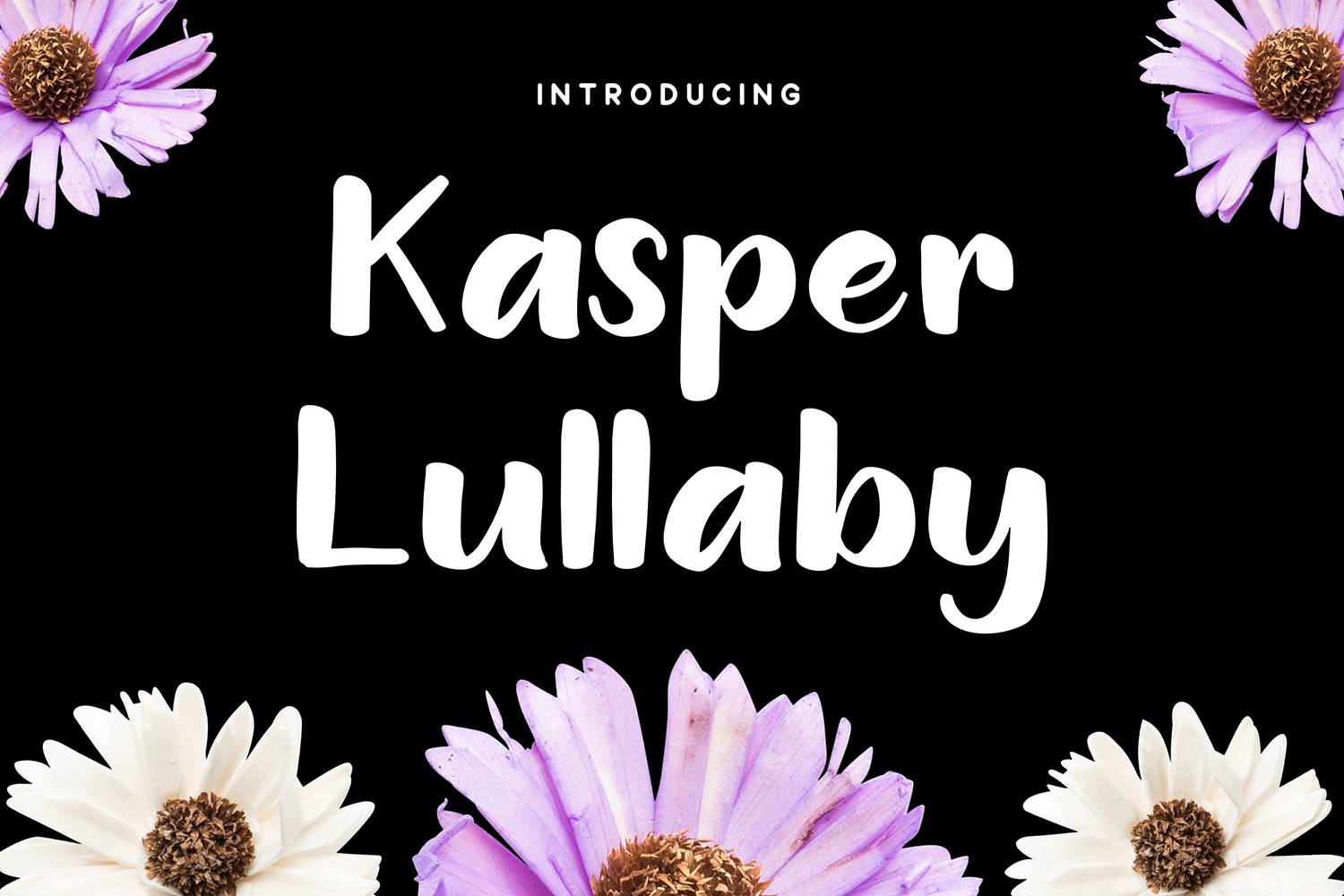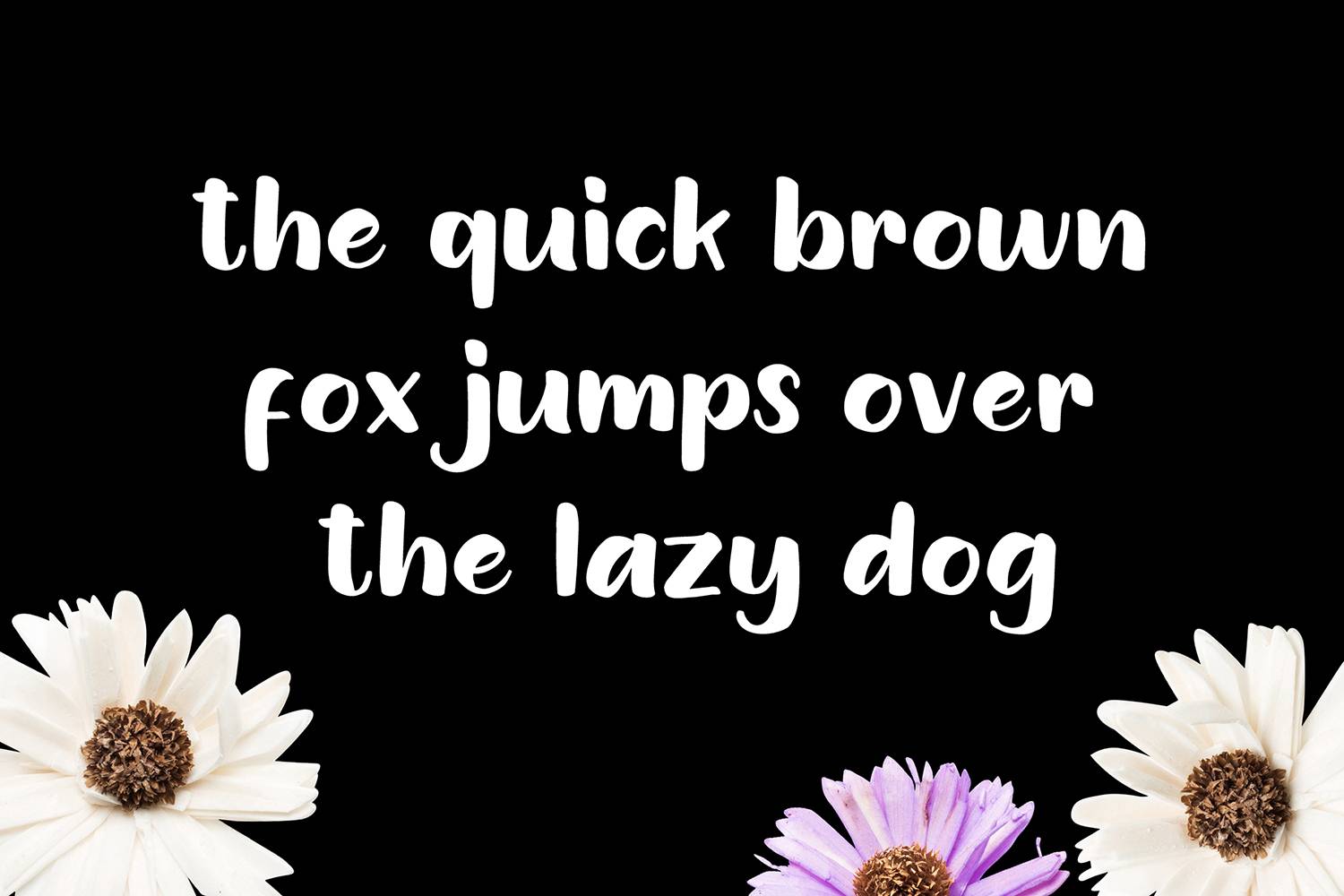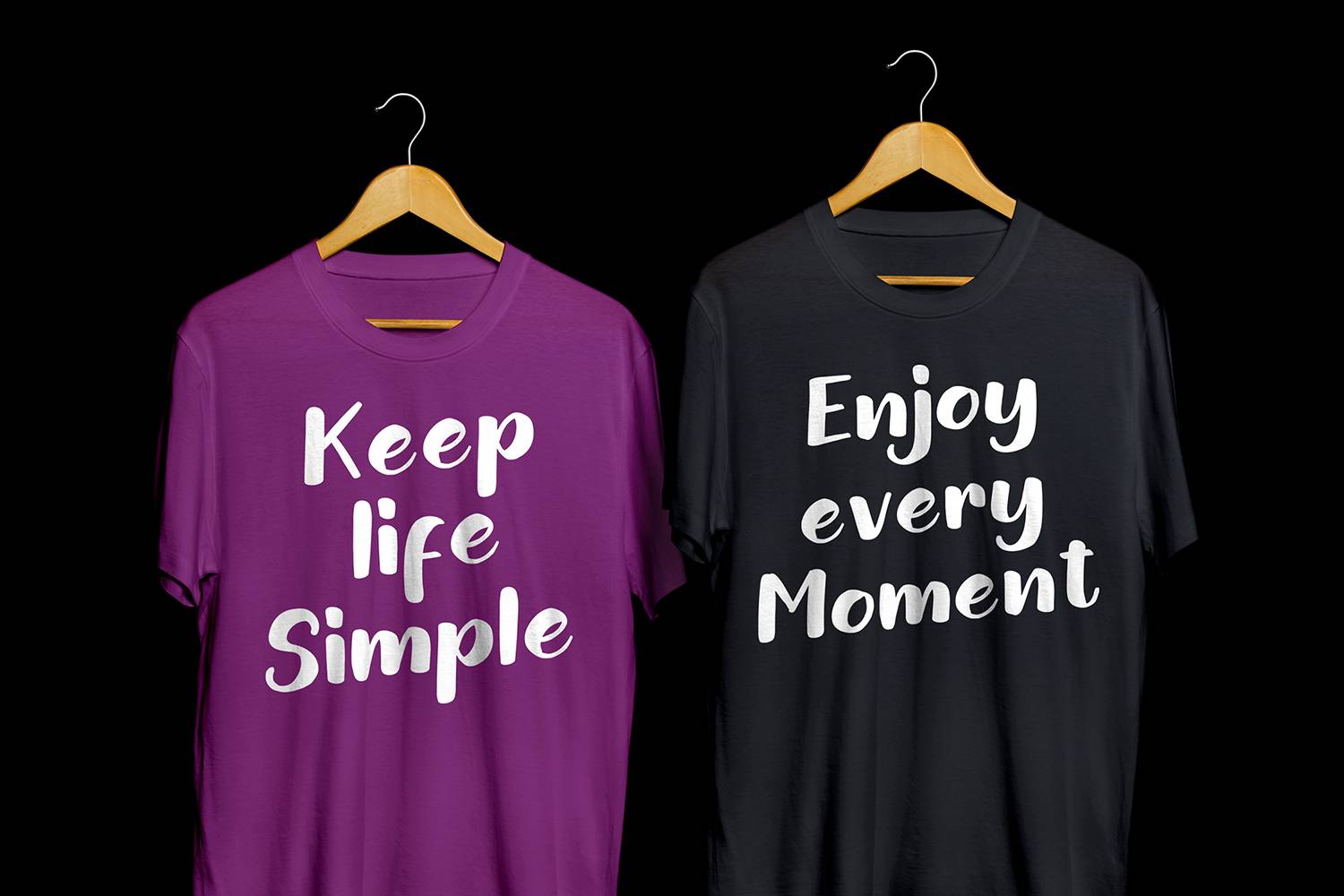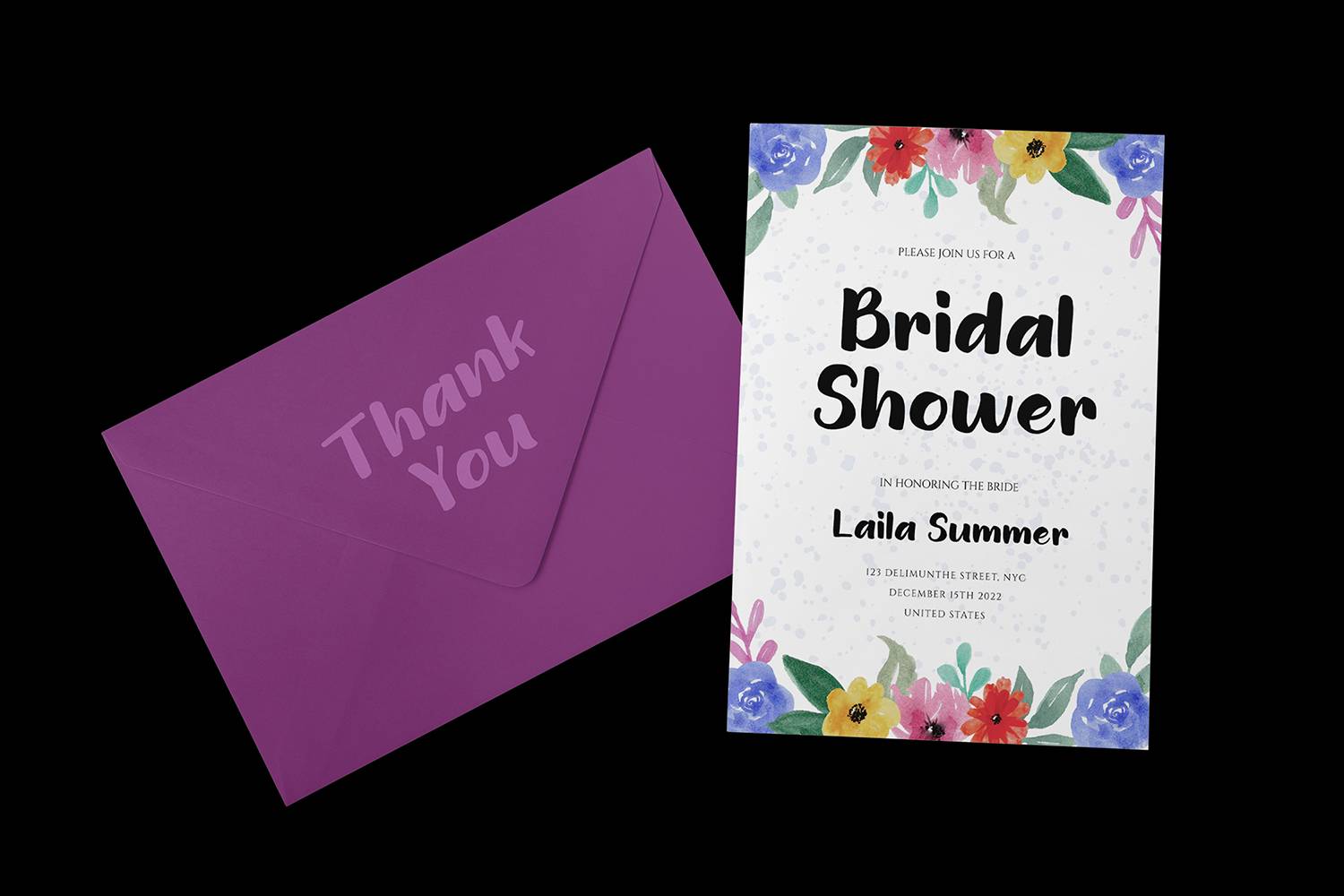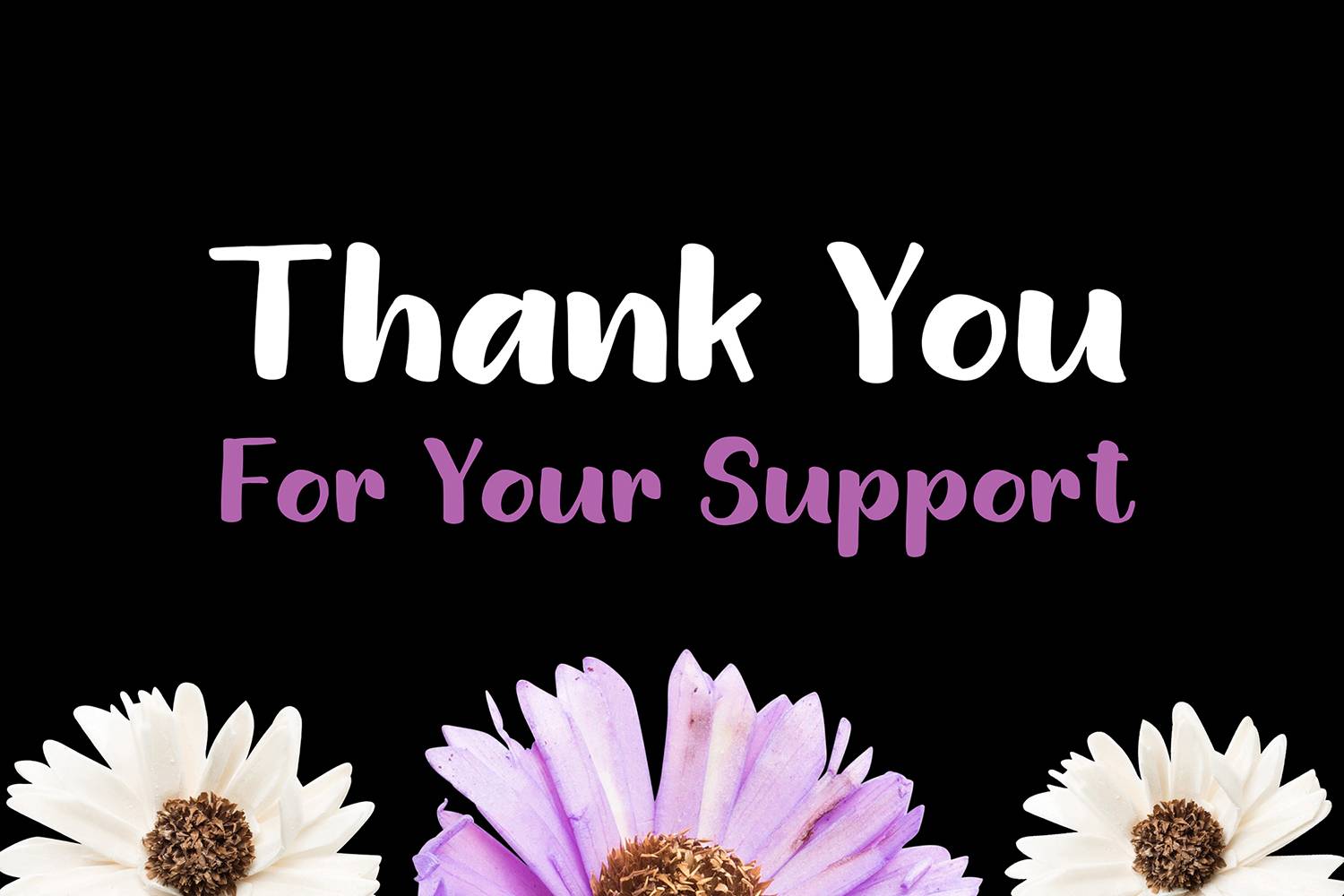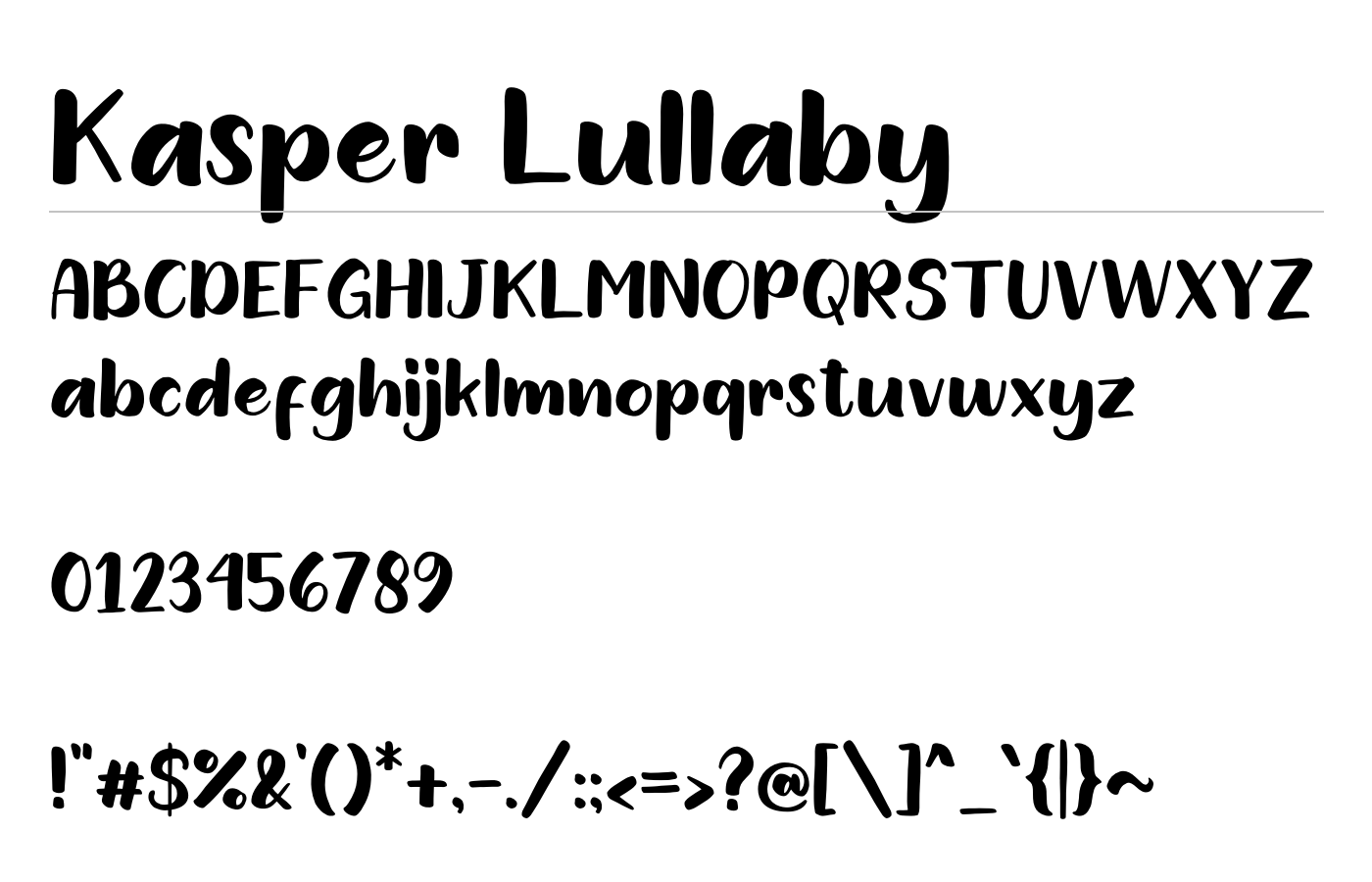
Kasper Lullaby is a playful and friendly handwritten sans serif font with a casual, inviting feel. Its rounded, slightly irregular letterforms and medium weight create a warm and approachable style, perfect for projects that want to convey creativity and charm. This font works well for branding, children’s materials, invitations, and any design that benefits from a personal, informal touch.
Kasper Lullaby Font
About Kasper Lullaby Font
| Font family | Kasper Lullaby Font |
| Release date | 2020-05-27 |
| Designer | Akhmad Reza Fauzi |